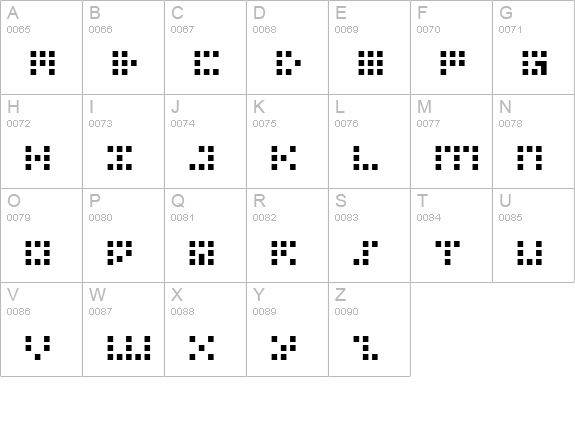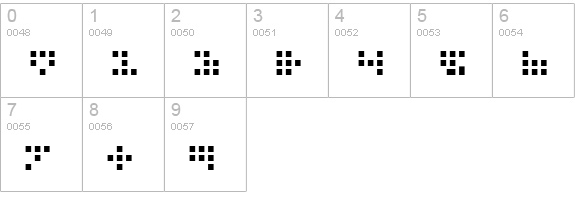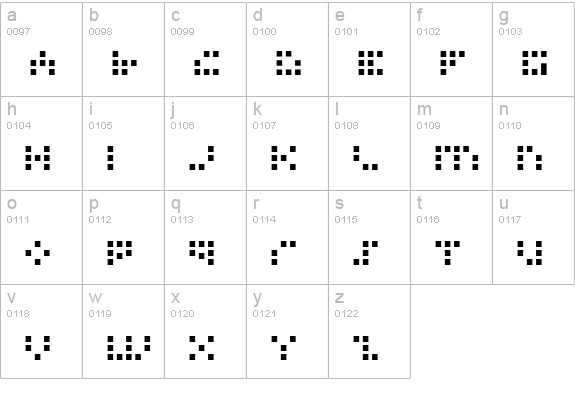
The Iconian font is a stunning display font that is sure to captivate and inspire. With its sleek and modern design, it exudes elegance and sophistication, making it perfect for a wide range of creative projects. What sets the Iconian font apart is that it is not only visually appealing, but it is also completely free. Yes, you read that right - this remarkable font can be yours at no cost. Thanks to FontsMarket.com, the Iconian font is freely available for download. FontsMarket.com is a trusted online platform that offers a vast collection of high-quality fonts, and the Iconian font is just one of the many gems you can find there. Whether you're a graphic designer working on a branding project, a web developer creating a sleek interface, or a content creator looking to add a touch of elegance to your work, the Iconian font is a fantastic choice. Its clean lines, sharp edges, and unique letterforms will make your designs stand out from the crowd. So what are you waiting for? Head over to FontsMarket.com and download the Iconian font today. With its free availability and exceptional style, it's an opportunity that should not be missed. Elevate your designs and unleash your creativity with the Iconian font - the perfect blend of beauty and affordability.